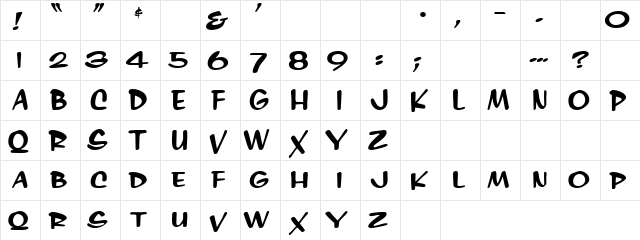
0 Lumax BigCaps DNA Regular Font Preview
0 Lumax BigCaps DNA Regular
0 Lumax BigCaps DNA Regular Font Details
Design Context for 0 Lumax BigCaps DNA Typeface
0 Lumax BigCaps DNA is a composed and adaptable typeface that performs quietly and consistently across a wide range of design contexts.